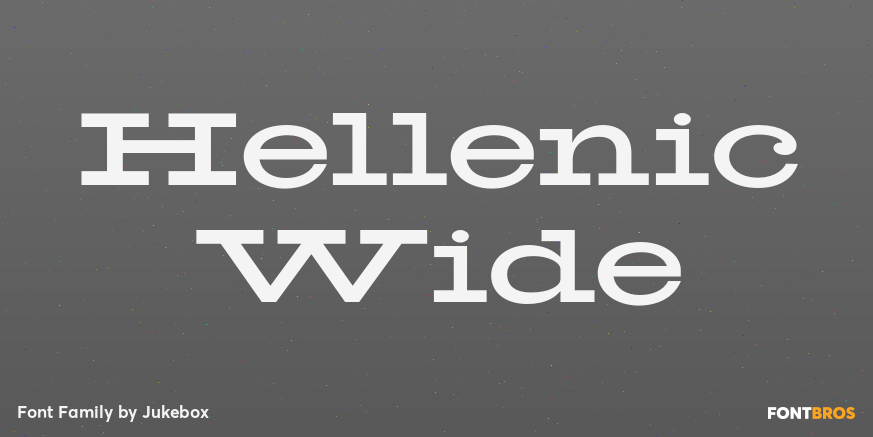
Hellenic Wide
About Hellenic Wide
Hellenic Wide is a slab serif typeface digitally revived for the Jukebox library from the ATF original. Its strong horizontal letterforms give it a classic mid 20th century look. Jukebox fonts are available in OpenType format and downloadable packages…